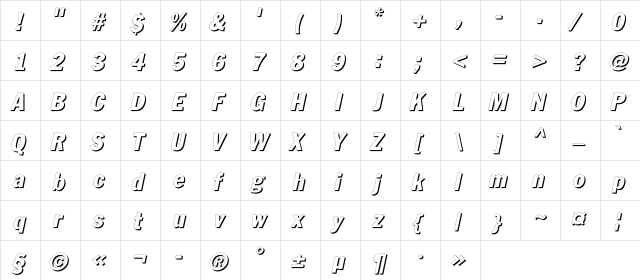
FagotCondShadowC Italic
Design Context for FagotCondShadowC Typeface
FagotCondShadowC brings ornamental detail and strong personality to headlines and identities, where visual impact matters more than quiet functionality. The dynamic lean of this cut emphasises speed and emphasis in any layout.
Font Pairing: Pair with a clean neutral sans-serif for body copy to let FagotCondShadowC's character lead without overwhelming the composition.
Pro Tip: Treat FagotCondShadowC as the centrepiece of your typographic hierarchy. One strong heading set in a decorative face can carry an entire layout.